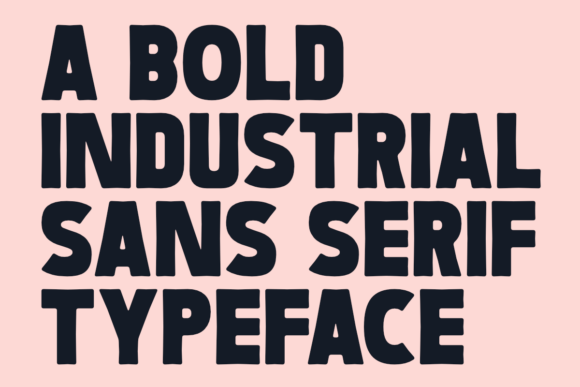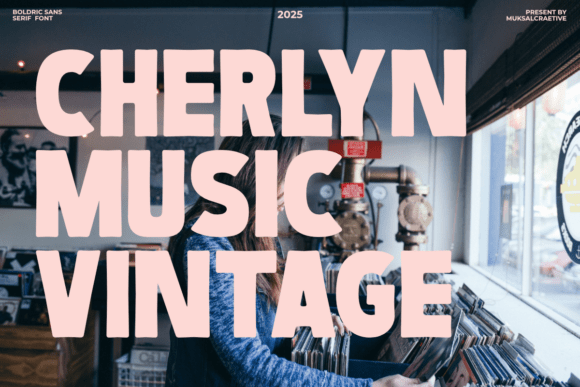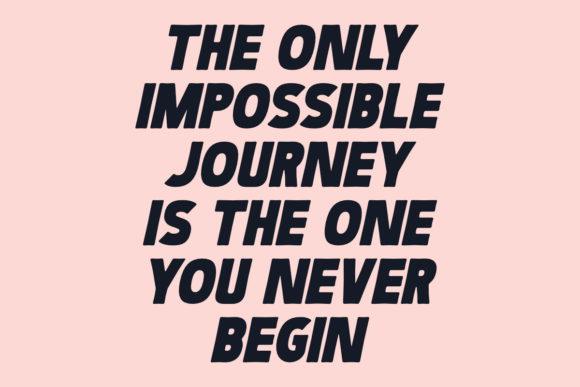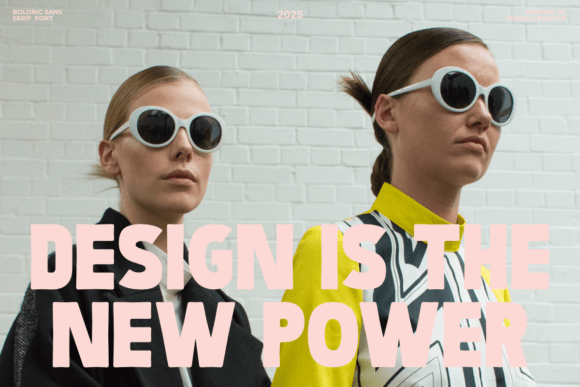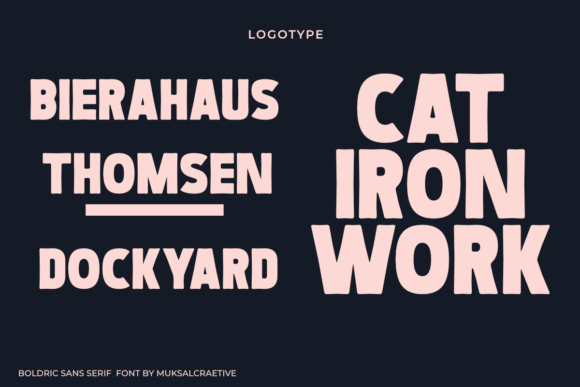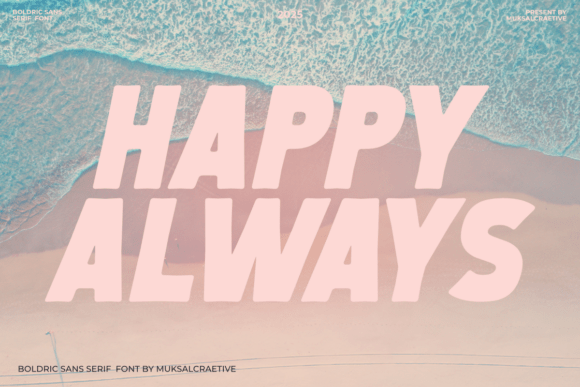
Introducing Boldric Font: The Ultimate Industrial Sans Serif for Impactful Designs
In the world of typography, a font can make or break a design. When it comes to creating a lasting impression, designers need a typeface that exudes strength, clarity, and a modern edge. This is where Boldric Font comes into play. Inspired by vintage industrial signage and retro poster typography, Boldric combines the best of both worlds to deliver a bold, clean, and characterful style that’s perfect for a wide range of design applications.
The Inspiration Behind Boldric
Boldric’s design is rooted in the industrial aesthetic of the past, with a modern twist. The font’s creator drew inspiration from vintage industrial signage, retro posters, and classic typography to craft a typeface that’s both nostalgic and contemporary. The result is a bold, sans-serif font that’s perfect for designers who want to add a touch of industrial chic to their work.
Key Features of Boldric Font
So, what makes Boldric Font so special? Here are just a few of its key features:
- Complete Uppercase & Lowercase: Boldric features a comprehensive set of uppercase and lowercase letters, making it perfect for a wide range of design applications.
- Numbers & Punctuation: The font includes a full set of numbers and punctuation marks, ensuring that you have everything you need to create professional-looking designs.
- Multilingual Support: Boldric supports multiple languages, making it a great choice for designers who work with international clients or want to create designs that appeal to a global audience.
Perfect for Impactful Designs
Boldric Font is designed to make a statement. Its bold, industrial aesthetic makes it perfect for a wide range of design applications, including:
- Branding: Create a lasting impression with Boldric’s strong, professional presence.
- Posters: Grab attention with Boldric’s bold, eye-catching style.
- Logos: Establish your brand identity with a custom logo that showcases Boldric’s unique character.
- Packaging: Stand out on store shelves with Boldric’s clean, modern aesthetic.
- Signage: Create eye-catching signs that showcase your message in a bold, easy-to-read format.
- Apparel: Add a touch of industrial chic to your apparel designs with Boldric’s bold, characterful style.
A Versatile Font for Digital and Print
One of the best things about Boldric Font is its versatility. The font is designed to work seamlessly in both digital and print environments, ensuring that your message looks great whether it’s on a website, social media, or a physical printout.
Why Choose Boldric Font?
So, why should you choose Boldric Font for your next design project? Here are just a few reasons:
- Powerful Presence: Boldric’s bold, industrial aesthetic gives your designs a powerful, masculine presence that’s sure to grab attention.
- Timeless Appeal: The font’s retro-industrial aesthetic has a timeless quality that ensures your designs will look great for years to come.
- Professional Quality: Boldric is a high-quality font that’s designed to meet the needs of professional designers.
In conclusion, Boldric Font is a versatile, powerful, and professional typeface that’s perfect for designers who want to make a bold statement. With its industrial aesthetic, clean lines, and characterful style, Boldric is the perfect choice for a wide range of design applications. Whether you’re working on a branding project, creating a poster, or designing a logo, Boldric Font is the perfect tool for the job.